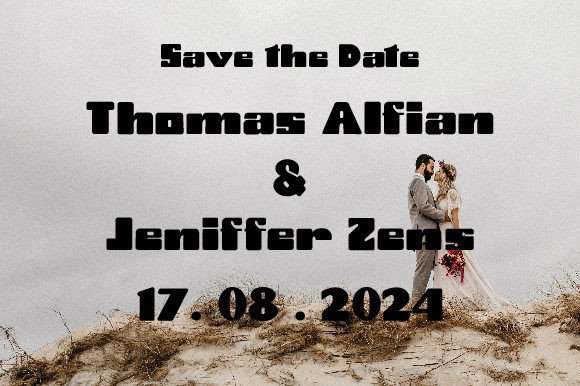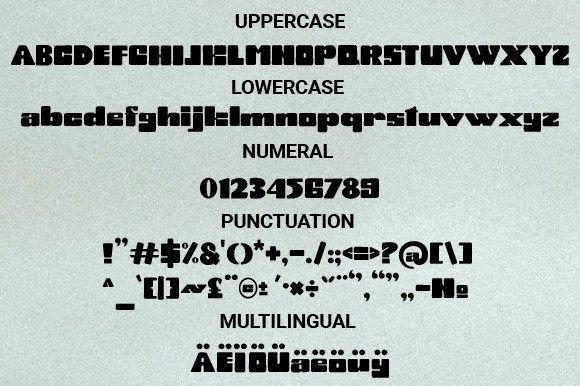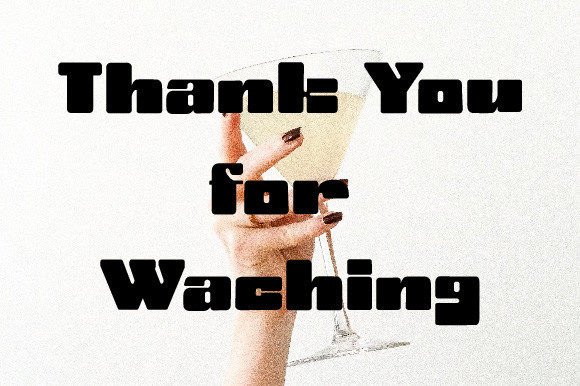
Introduction to Mexolie Font
Have you ever found yourself stuck in the middle of a creative project, desperately searching for the perfect font to bring your vision to life? The frustration of scrolling through endless options, only to end up with something that just doesn’t quite fit? Well, we’ve got some exciting news for you – we’ve discovered a game-changing font that’s about to revolutionize your design process: the Mexolie Font.
| 👤 Author | Wisnoetype Co |
This stunning display font is the ultimate design resource for creatives, offering a bold and eye-catching look that’s perfect for printing, screen printing, posters, banners, social media, logos, and so much more. With its high-quality design and transparent background, the Mexolie Font is a valuable asset for designers looking to elevate their projects and make a lasting impression.
Key Features of Mexolie Font
- Features a transparent background, allowing for seamless integration into designs and minimizing visual clutter.
- Includes a range of glyphs and characters, making it suitable for use in a variety of creative projects, from logos to typography-based designs.
- Designed with a focus on versatility and style, the Mexolie Font is perfect for designers seeking a high-quality, unique design resource.
Honest Review: Mexolie Font
I recently stumbled upon the Mexolie Font while searching for a unique design resource for a creative project. I was excited to dive in and see what it had to offer.
Here are some things that stood out to me:
- ✨ High-quality typography: The Mexolie Font has a beautiful, elegant feel to it, making it perfect for a wide range of design applications.
- ✨ Transparent background: This feature allows for seamless integration into any design, giving me more flexibility when working on a project.
While the Mexolie Font is an excellent design resource, there are a few limitations to keep in mind:
- ⚠️ Limited font weights: The font only comes in a few weights, which may limit its use in certain design applications.
- ⚠️ Not suitable for large-scale projects: The font may not be the best choice for large-scale projects or those that require a lot of customization.
Overall, I was impressed with the Mexolie Font and would recommend it to designers looking for a high-quality, unique font for their creative project.
Tips for Getting the Most Out of Mexolie Font
Use the Mexolie Font in conjunction with other design resources to create a cohesive and professional design. Experiment with different font sizes and colors to get the most out of it. Also, make sure to download the font from a reputable source to ensure high quality.
The Mexolie Font is a versatile design resource that can be used in a variety of creative projects. Some common use cases include creating a logo, designing a brochure, or making a presentation. Its unique and high-quality design makes it a popular choice among designers and artists.
What is the recommended usage for the Mexolie Font in terms of font size and line height?
We recommend using the Mexolie Font in a font size range of 12-24 points for optimal readability. In terms of line height, a ratio of 1.2 to 1.5 is recommended to ensure that the text is easy to read and visually appealing. You can adjust these settings according to your specific design requirements and preferences.